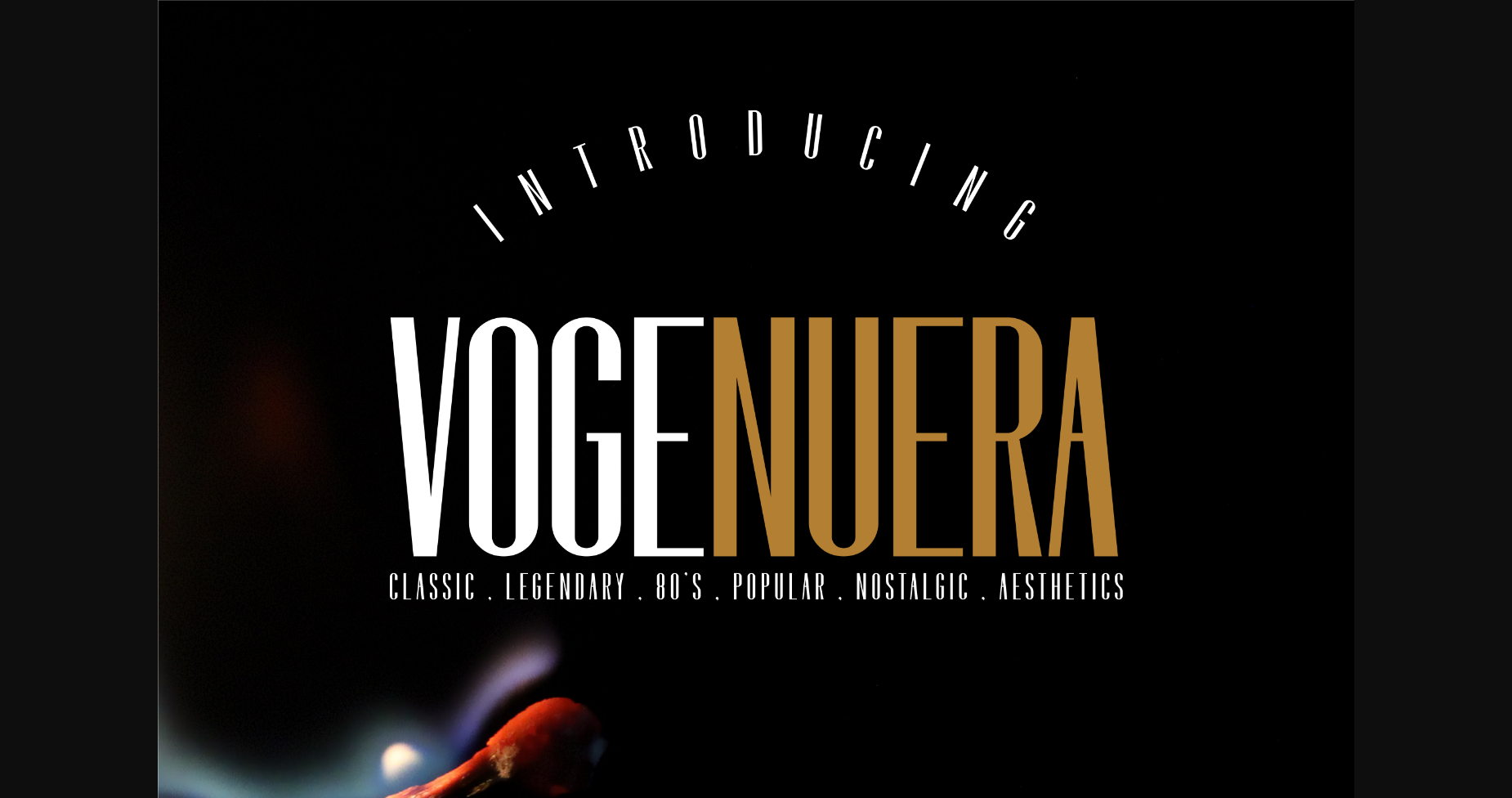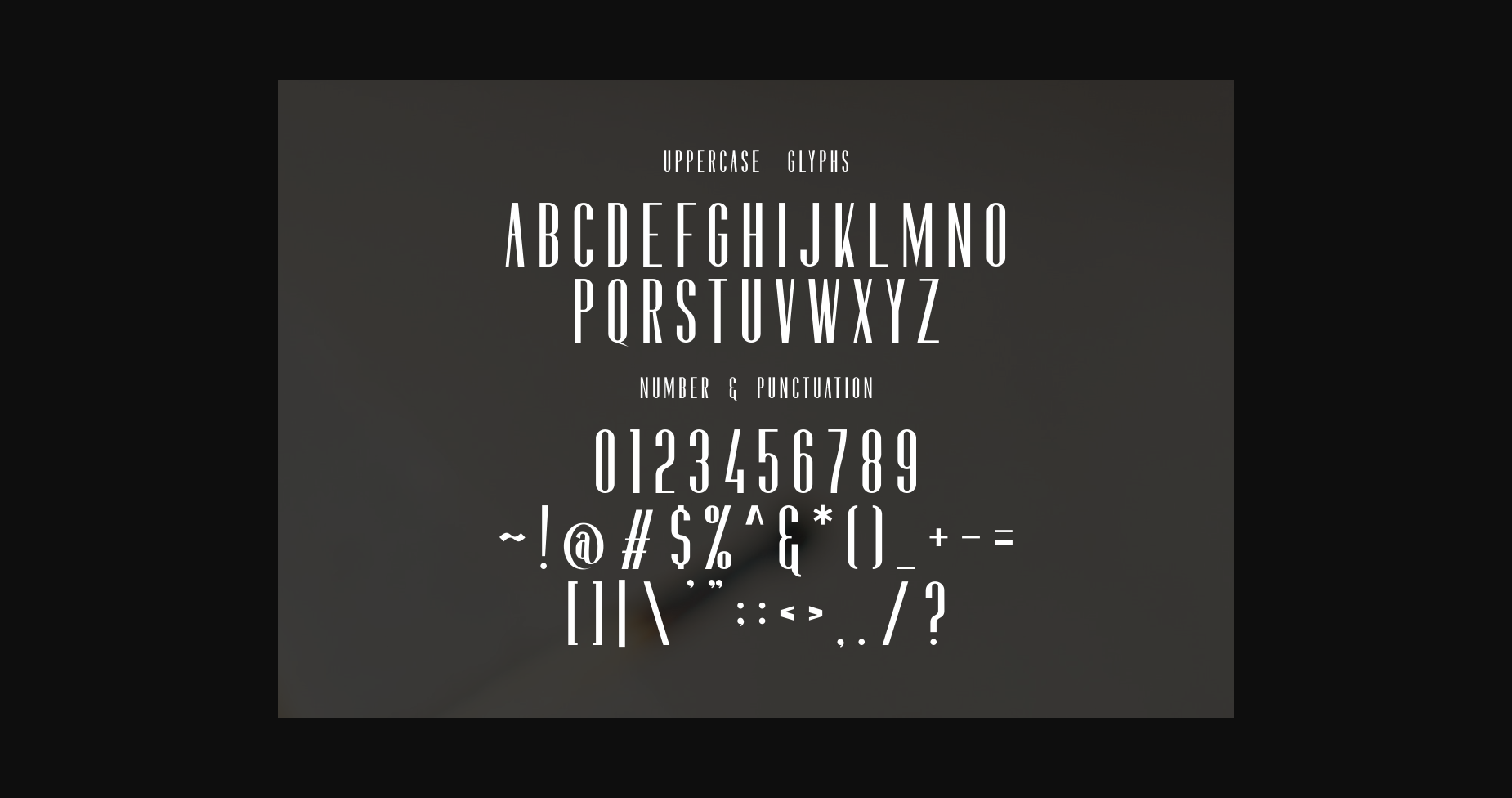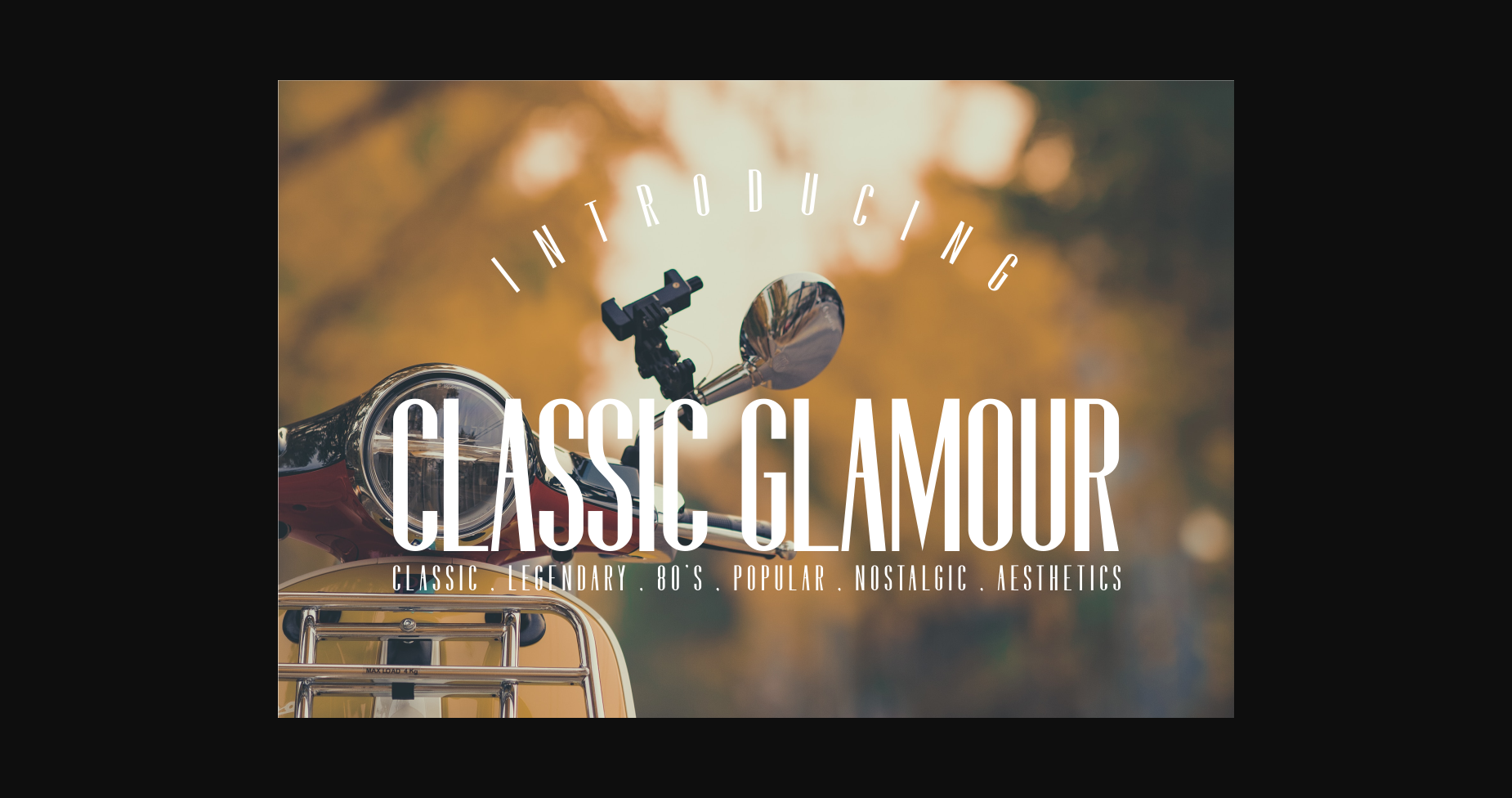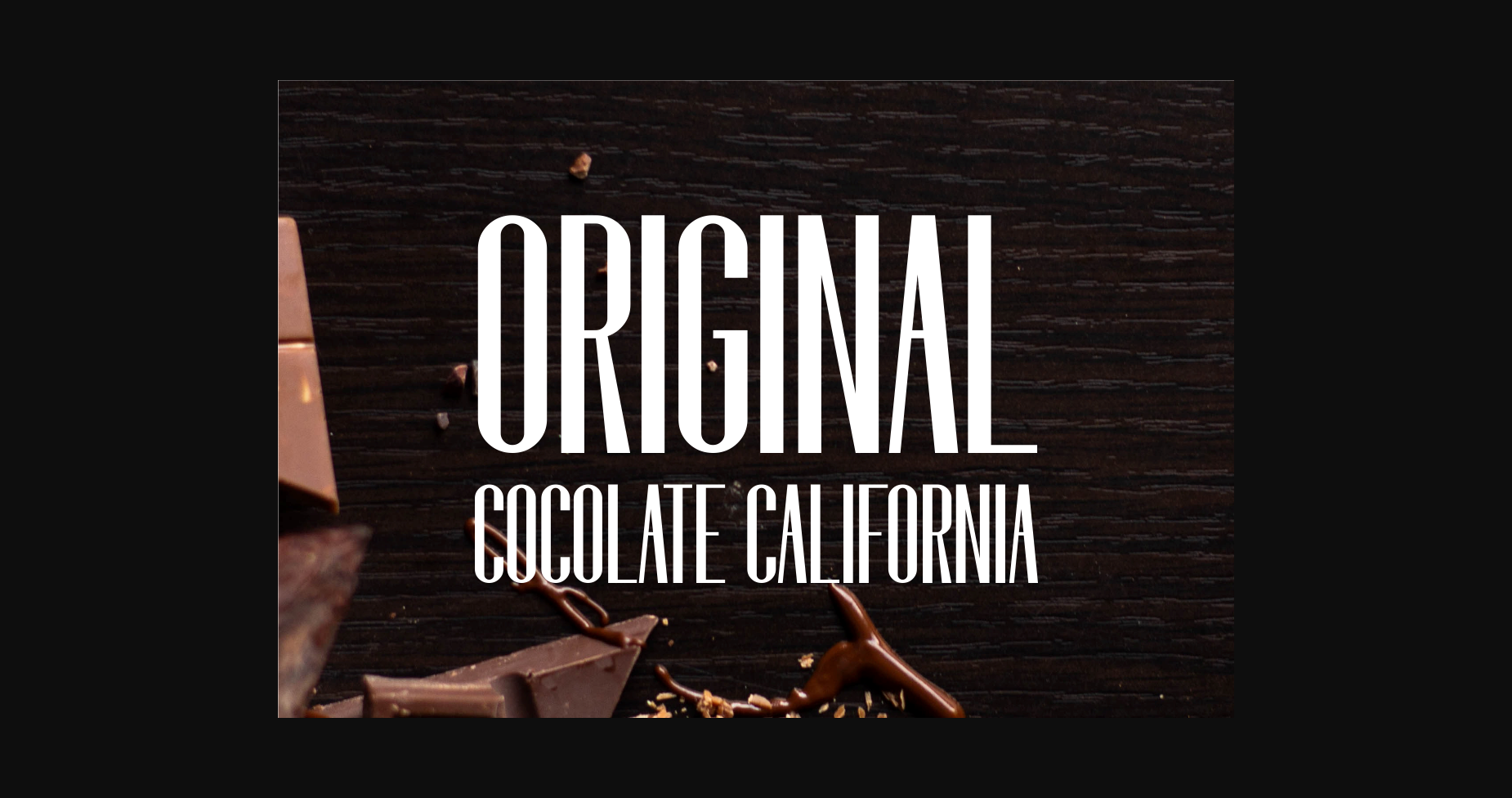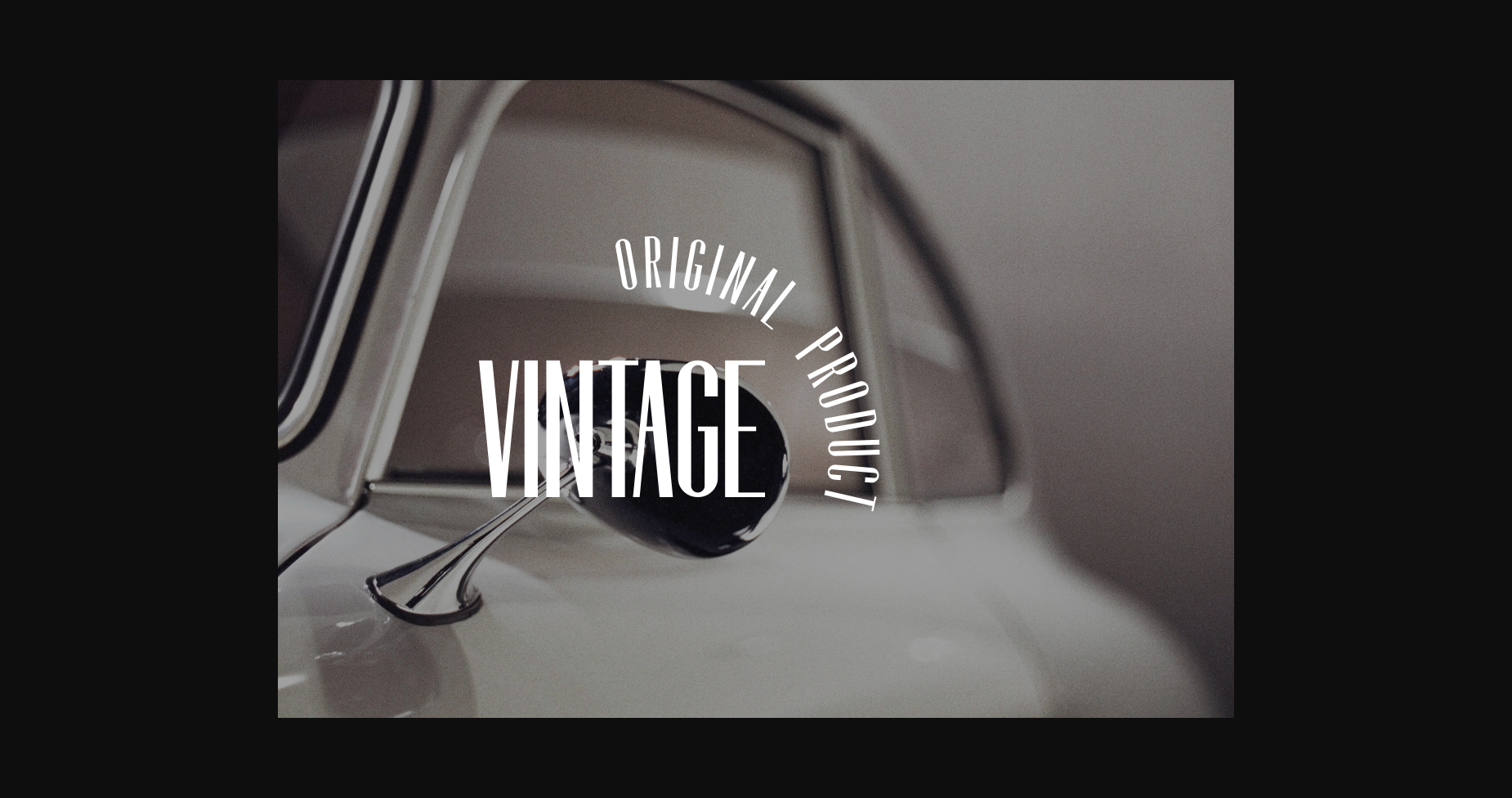
This classic font from the 80s was used in almost every work back in the day. Let’s make this era the golden era of this type of font known again by millennials.